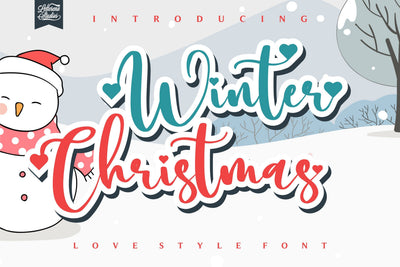
Winter Christmas
Winter Christmas is a delicate and dreamy handwritten font. Its distinct and well rounded letters make this font a true favorite. It is ideal for holiday-themed greeting cards and for any crafting project that requires a romantic touch. This font is PUA encoded which means you can access all of the glyphs and swashes with ease!